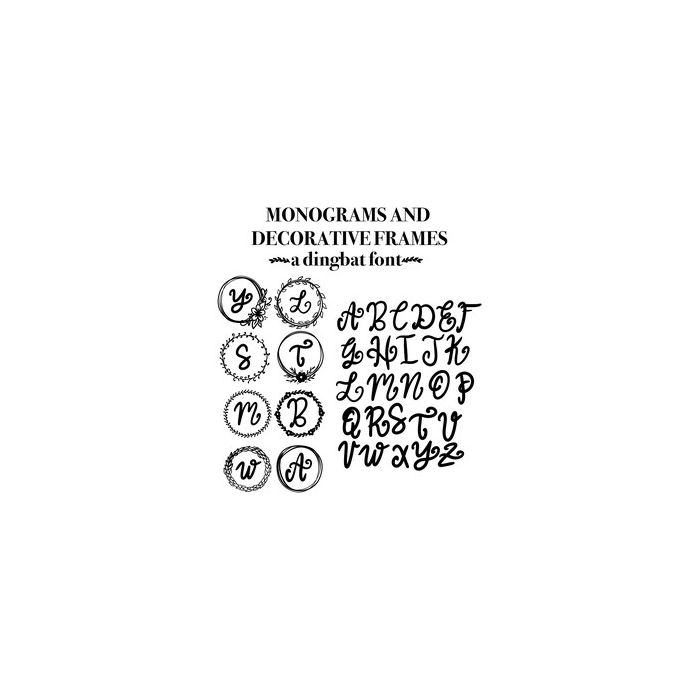
This dingbat font comes in OTF format. You will receive 26 hand lettered monogram letters and 8 unique decorative frames to mix and match for all your craft projects.